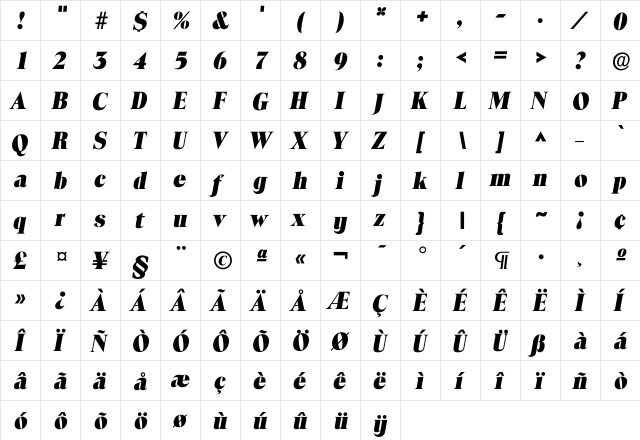
Itoledo ExtraBold Font Preview
Itoledo ExtraBold
Design Context for Itoledo Typeface
Itoledo offers clean, dependable letterforms without strong stylistic allegiance, making it a practical choice for designers who need flexibility. Its bold stroke weight gives it real presence on the page.